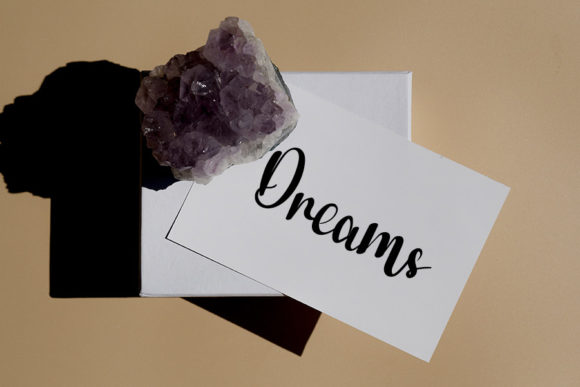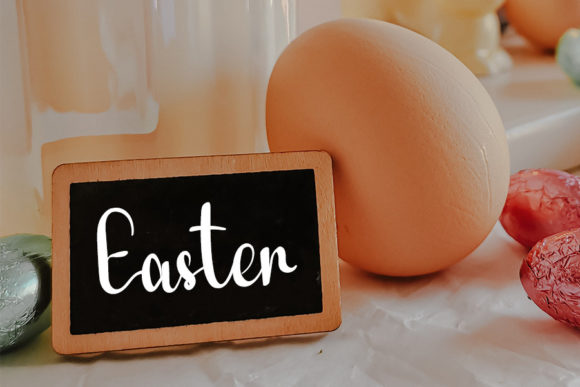
Autism Font
db-ku.com - Script & Handwritten -- Autism is a well-balanced handwritten font with a contemporary atmosphere and impeccable form, inspired by a timeless classic calligraphy. It will look outstanding in a wide range of contexts.